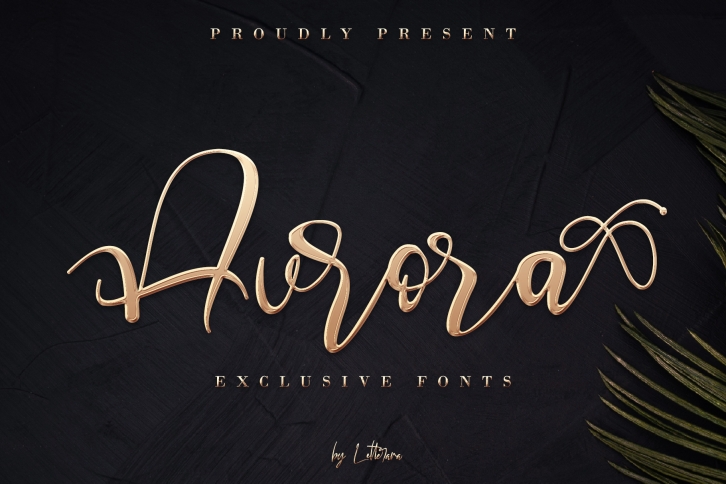
Aurora is a great font that was designed by letterara. Imagine the amount of combinations you can create using this font! The archive is 12.40 MB and it was released on November 5, 2019. Aurora looks beautiful on wedding invitations, greeting cards, logos, posters, labels, t-shirt designs, logos, business cards and is perfect for use in ink or watercolor works, fashion, magazines, packaging and food menus, children's books and more!